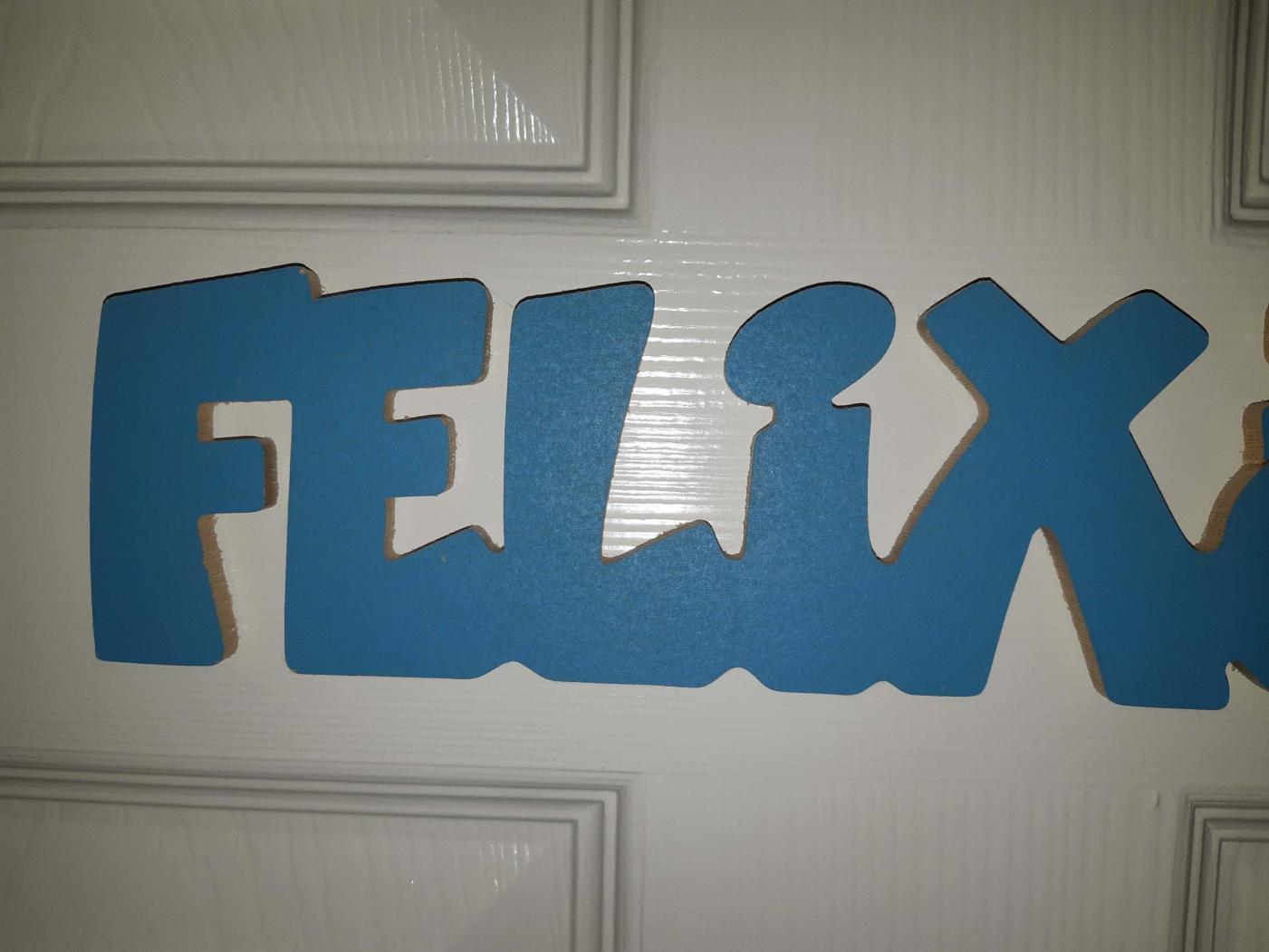
Name plaque font
This looks like a special font designed for a cut out machine. Nearest I can think of is OPTI Bevis Extra Bold.  Bevis started life a Burghley from fonthaus.
It's by no means identical, but it does have a similar kind of "kiddy goofyness".